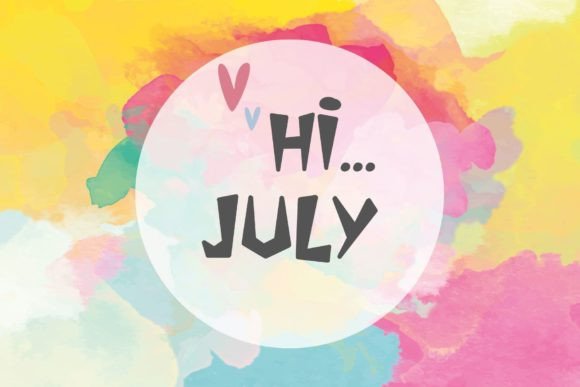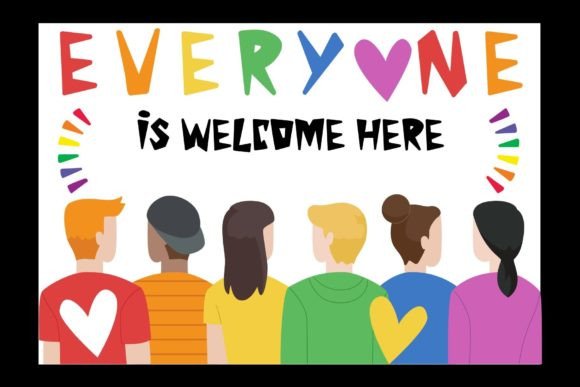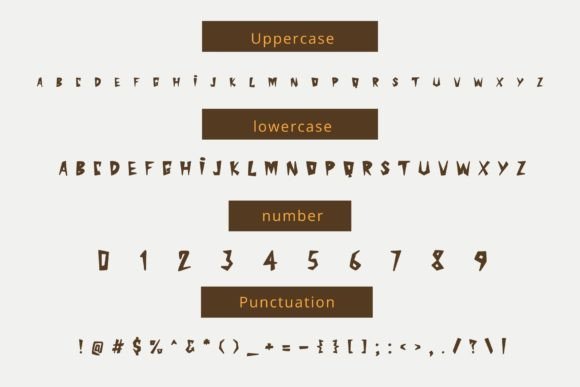
Introduction to Crazy Boy Font
Crazy Boy is a cool display font.
It embodies playfulness and authenticity and is the perfect choice for all your favorite projects such as blog posts, logos, branding, ads, invitations, greeting cards, planners, photo albums, decorations, and much more .
Key Features of Crazy Boy Font
Why Choose Crazy Boy Font?
Crazy Boy Font offers exceptional quality and versatility, making it a valuable addition to your design toolkit. Whether you’re creating for personal projects or commercial use, Crazy Boy Font delivers professional results.